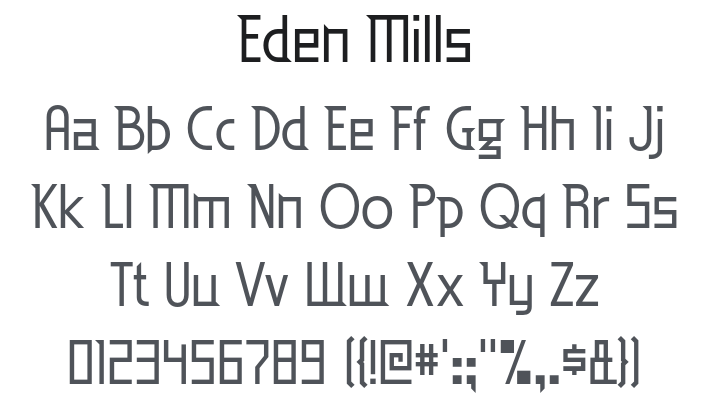
Eden Mills Font Family
About Eden Mills
Eden Mills is a postmodern geometric sans-serif with deliberately illogical characteristics — square parts are made round, round parts made square, and sharp spikes jut out in unexpected directions. The result is a typeface that feels both structured and eccentric. Available in Regular, Bold, and italics, it suits experimental branding, editorial headlines, tech posters, and designs that want to surprise and intrigue.